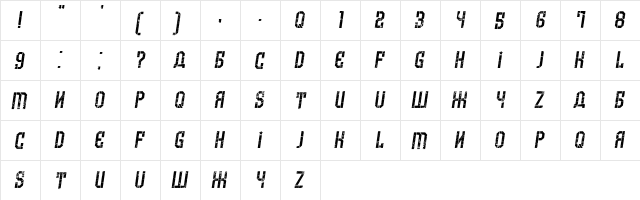
Armenia Grunge Italic
Design Context for Armenia Grunge Typeface
Armenia Grunge embraces imperfection — its rough, textured character adds raw authenticity to designs that want to feel lived-in and unconventional. The dynamic lean of this cut emphasises speed and emphasis in any layout.
A strong fit for alternative music projects, graffiti-adjacent design, and anything that deliberately resists polish.
Pro Tip: Use Armenia Grunge at larger sizes where the texture and irregularity of each letterform can be clearly seen — it loses its character at small sizes.